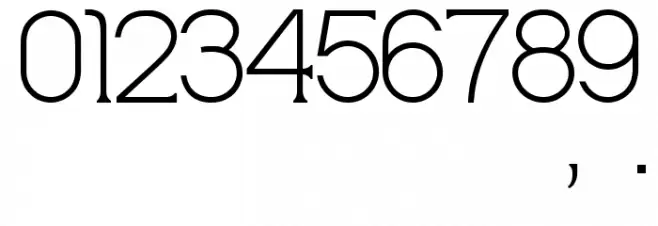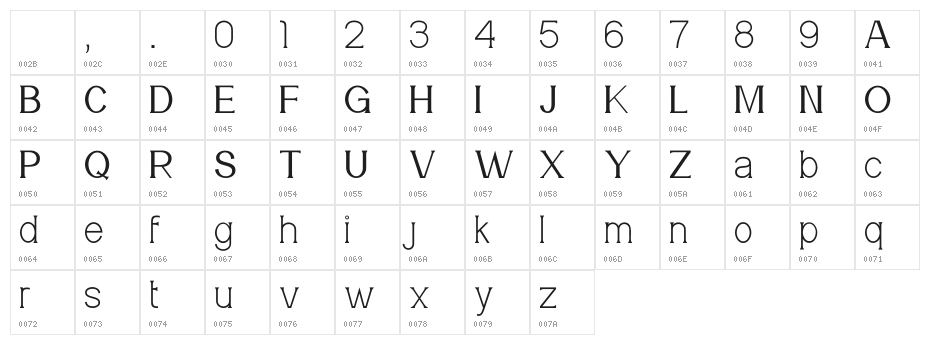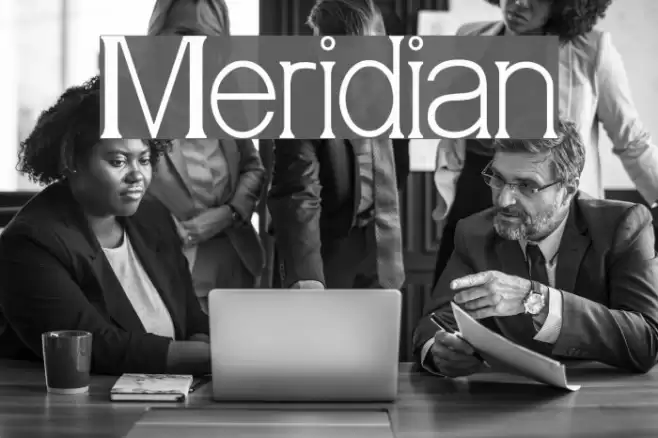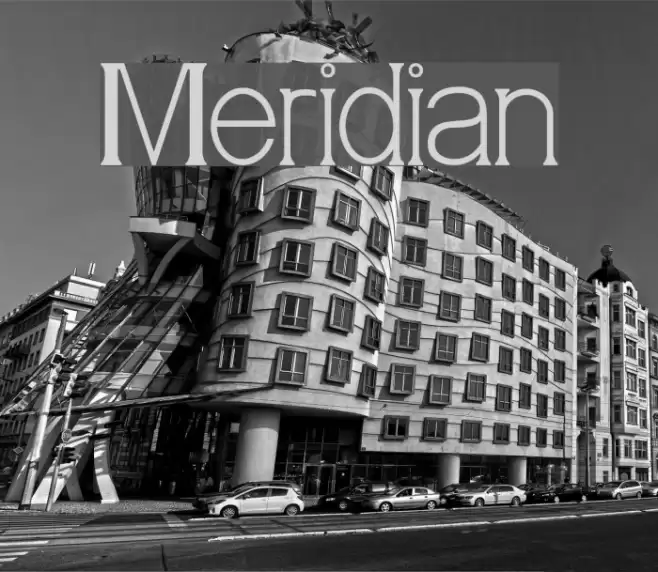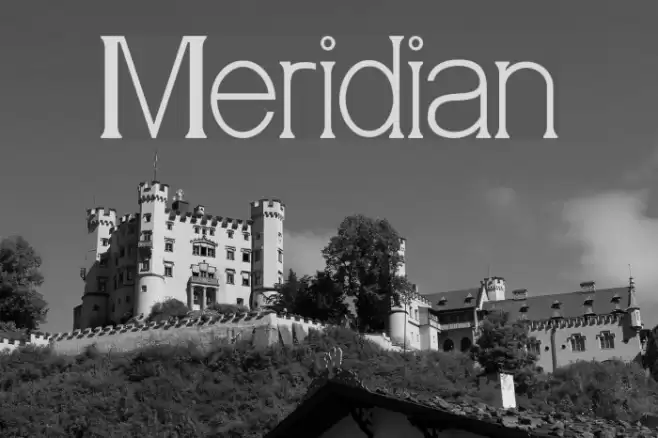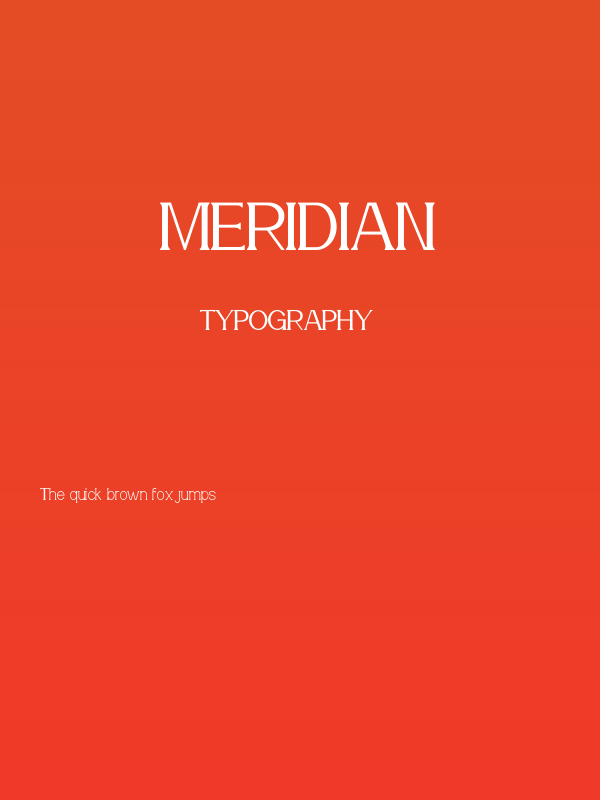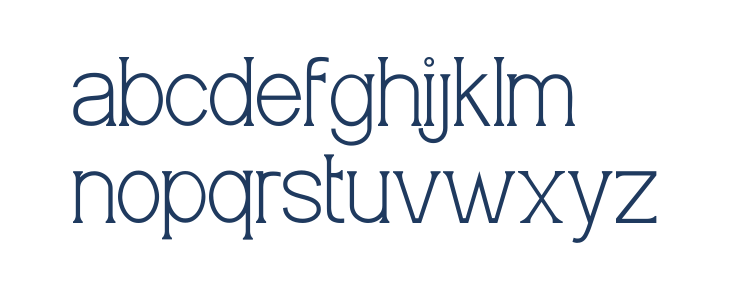
Meridian Font
Meridian Description
This font exhibits a refined and elegant serif style, characterized by its thin, elongated strokes and subtle curves. The uppercase letters are tall and stately, with a slight flair at the ends of the strokes, giving them a sophisticated appearance. The lowercase letters maintain a consistent height and feature smooth, rounded forms that enhance readability. The numerals are clear and distinct, with a uniform width that complements the overall design. This font's balanced proportions and classic serifs make it suitable for a variety of applications, from formal invitations to editorial layouts.
| Proposed Projects | Ideal for formal invitations, editorial layouts, branding, and luxury product packaging. |